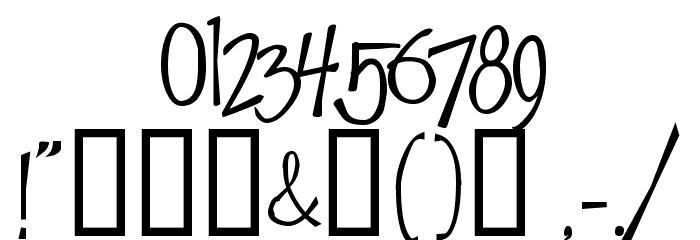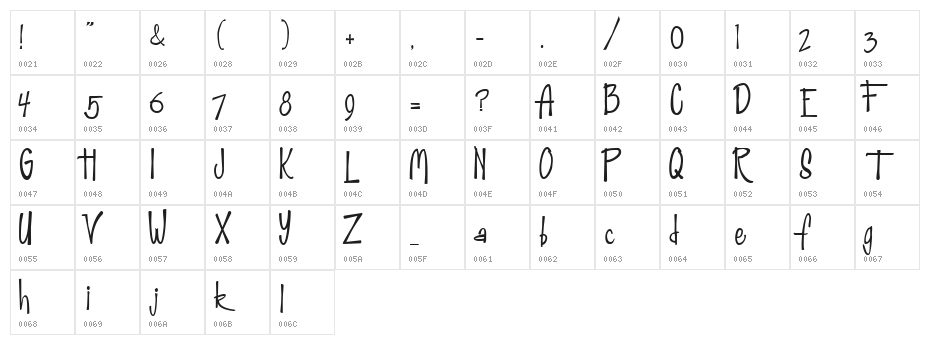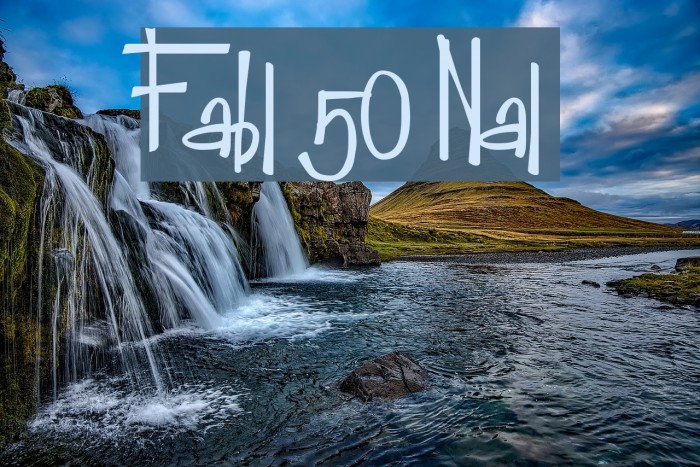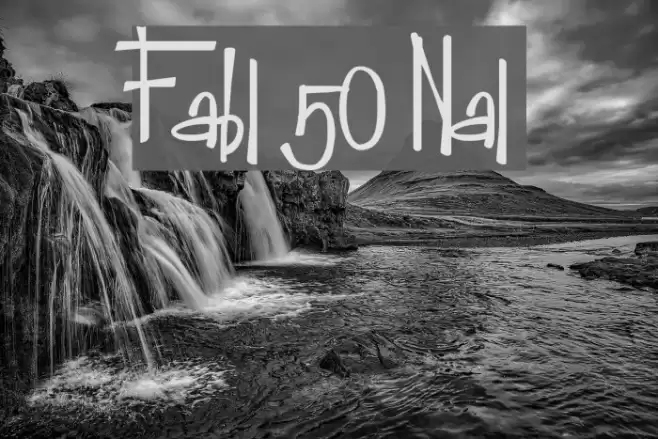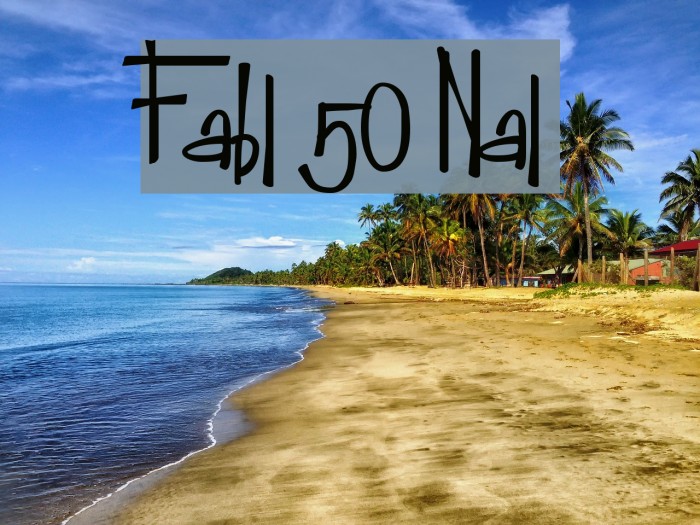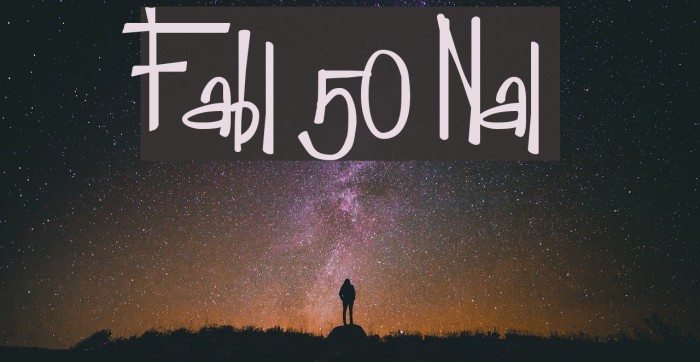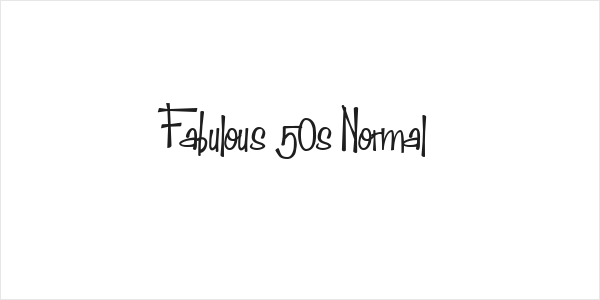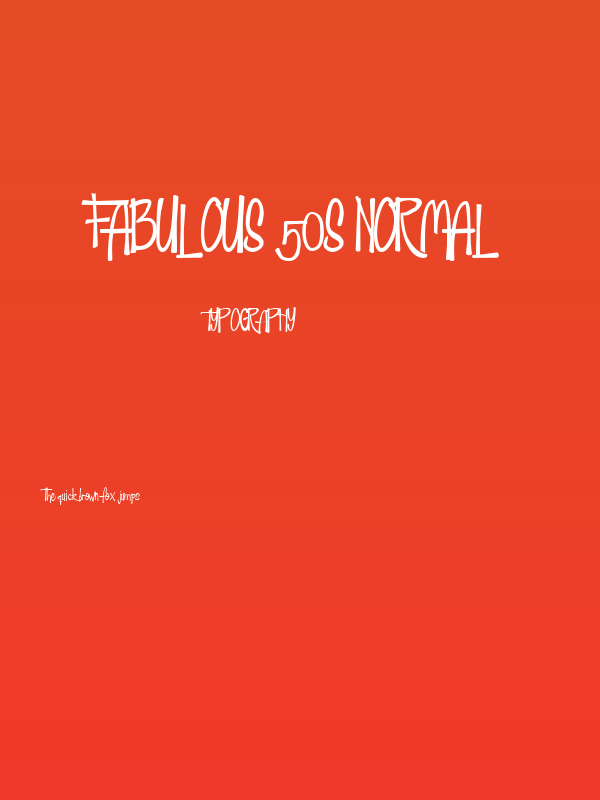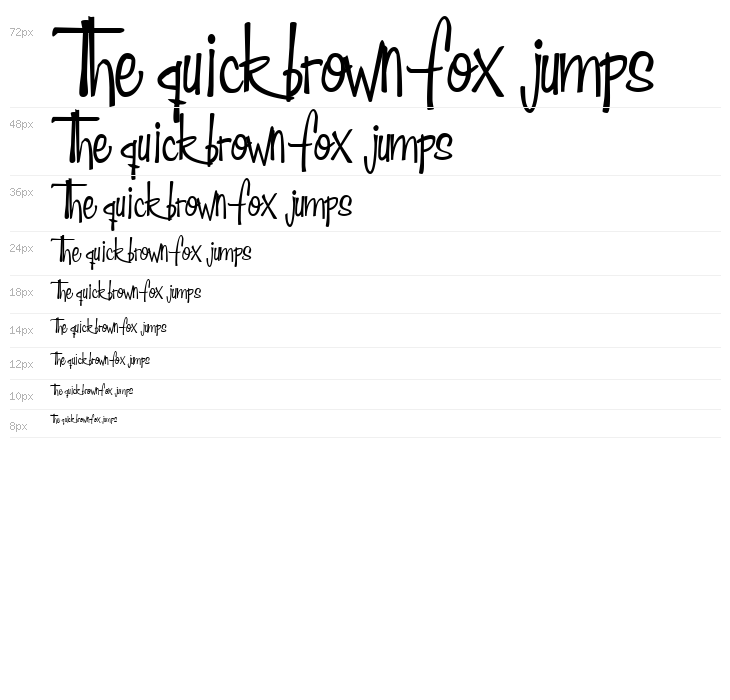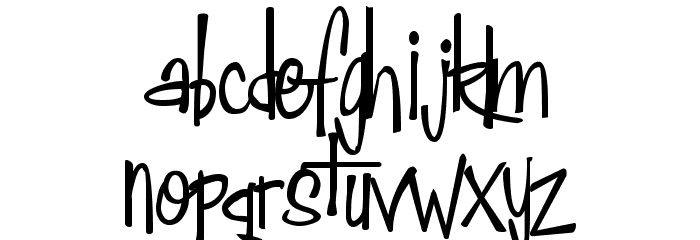
Fabulous 50s Normal Font
Fabulous 50s Normal Description
This font exudes a playful and retro vibe, reminiscent of mid-20th-century design aesthetics. The characters are tall and narrow, with a hand-drawn quality that adds a whimsical touch. The uppercase letters are bold and slightly irregular, giving a sense of movement and energy. The lowercase letters maintain a consistent style, complementing the uppercase with their own quirky flair. Numbers and special characters follow the same playful design, making this font ideal for projects that require a fun and nostalgic feel.